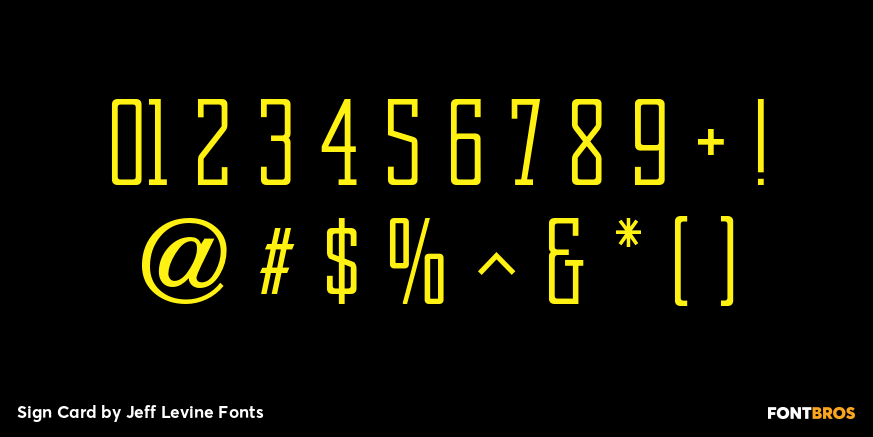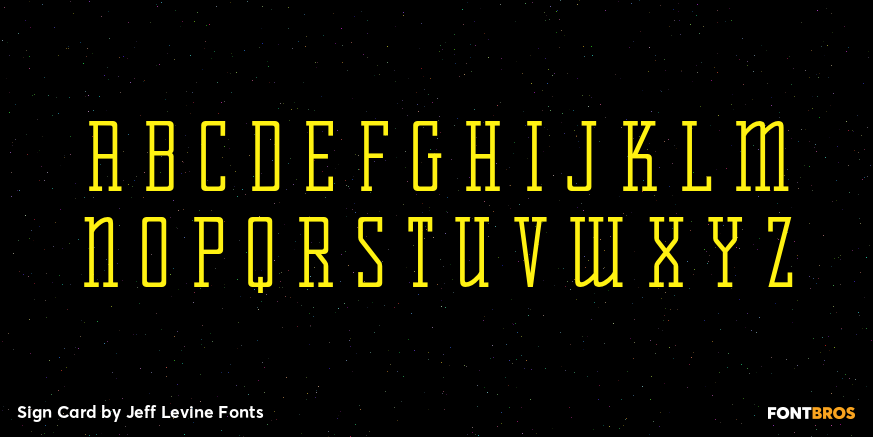
Sign Card
The addition of serifs to an existing typeface can drastically change the look and feel of a design.
Sign Card JNL and its oblique version is just such a treatment of Sign Shop JNL. By adding the serifs, there is not only a brand-new Art Deco typeface possessing a regal and formal style, but a distant resemblance to a Russian Cyrillic font with its mechanical form and function.
Sign Card JNL Regular by Jeff Levine Fonts